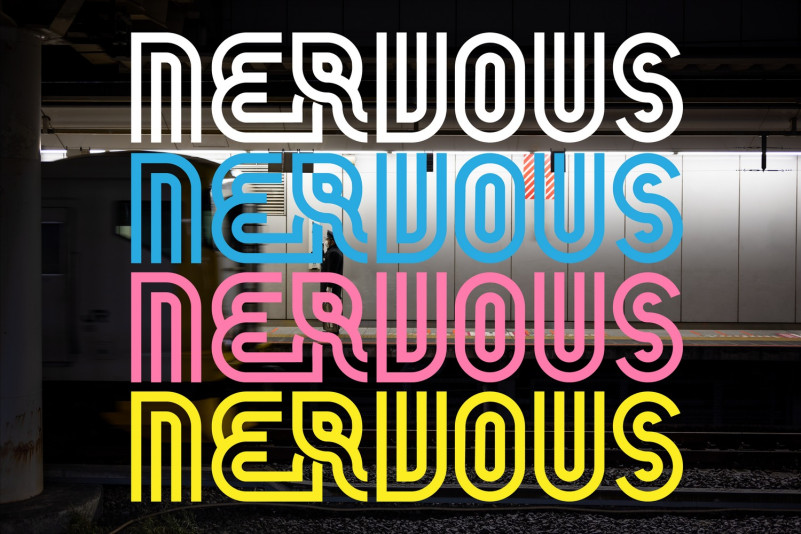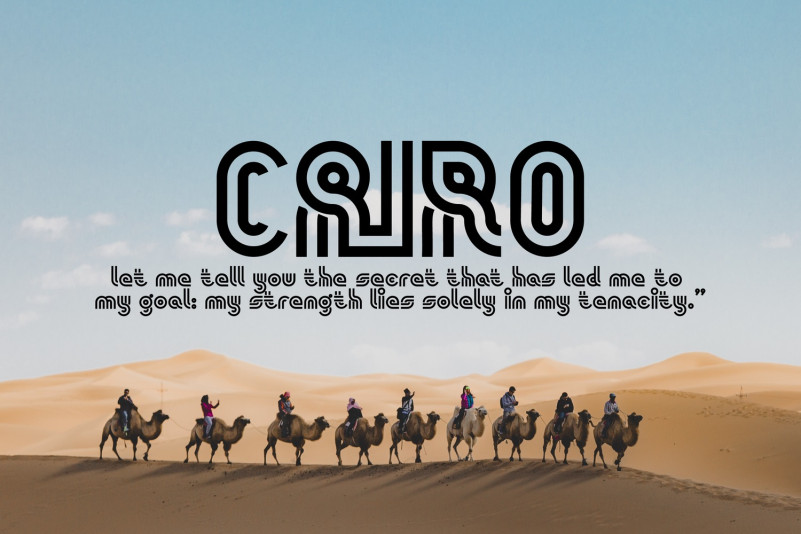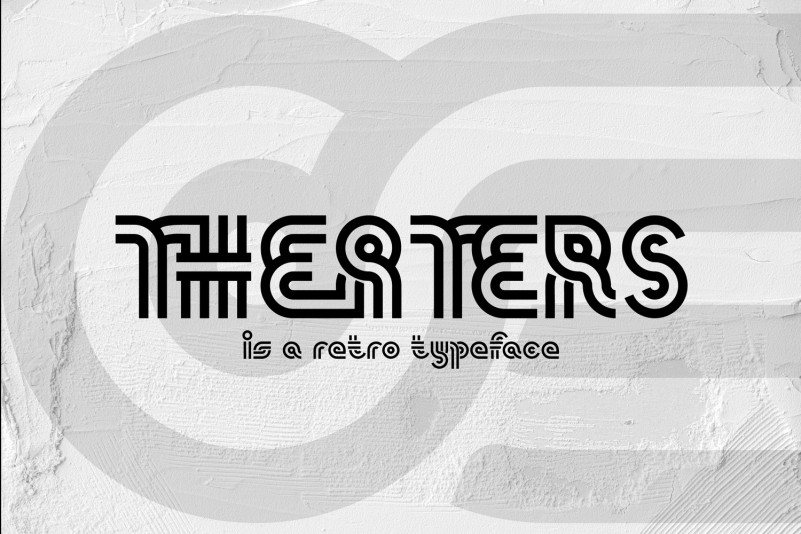
Theaters Font
Theaters Display Font is a geometric twin-line font, a unique display typeface. it’s great for any kind of display purpose from logos, tshirt, apparel, quote, handwritten quotes, product packaging, tittle header, poster, merchandise, social media, labels, branding & greeting cards.
To make it look more unique, here we prepared some ligatures:
AB AD AF AH AI AM AN AP AR AT EA EB ED EH EM EN EP ER ET EY EZ FA FB FD FE FH FI FO FR FT KA KE KI KO KU LA LE LG LO LU TA TE TH TI TU TV TY